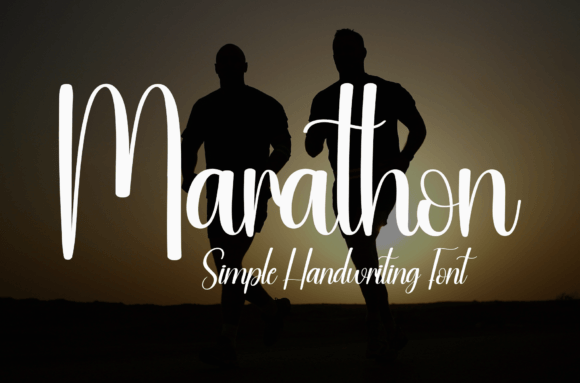
Introducing Marathon Font, the enchanting script font that will transform your designs into captivating works of art. Inspired by the beauty of handwritten letters, Marathon Font exudes a sense of warmth and elegance that will leave a lasting impression on your audience. Let the smooth curves and playful shapes of Marathon Font carry your messages with grace and charm.
Unleash your creativity and let Marathon Font guide you through a world of design possibilities. Picture your wedding invitations adorned with Marathon Font's delicate strokes, adding a touch of personal charm to your special day. Envision your social media posts popping with personality, capturing the attention of your followers with Marathon Font's captivating flair. With its versatility, Marathon Font is the perfect font for expressing yourself in countless ways.
Imagine your branding materials elevated to new heights, with Marathon Font adding a touch of sophistication and uniqueness to your logo, business cards, and marketing campaigns. Let Marathon Font be your secret weapon to stand out from the crowd and make a lasting impression on potential customers.